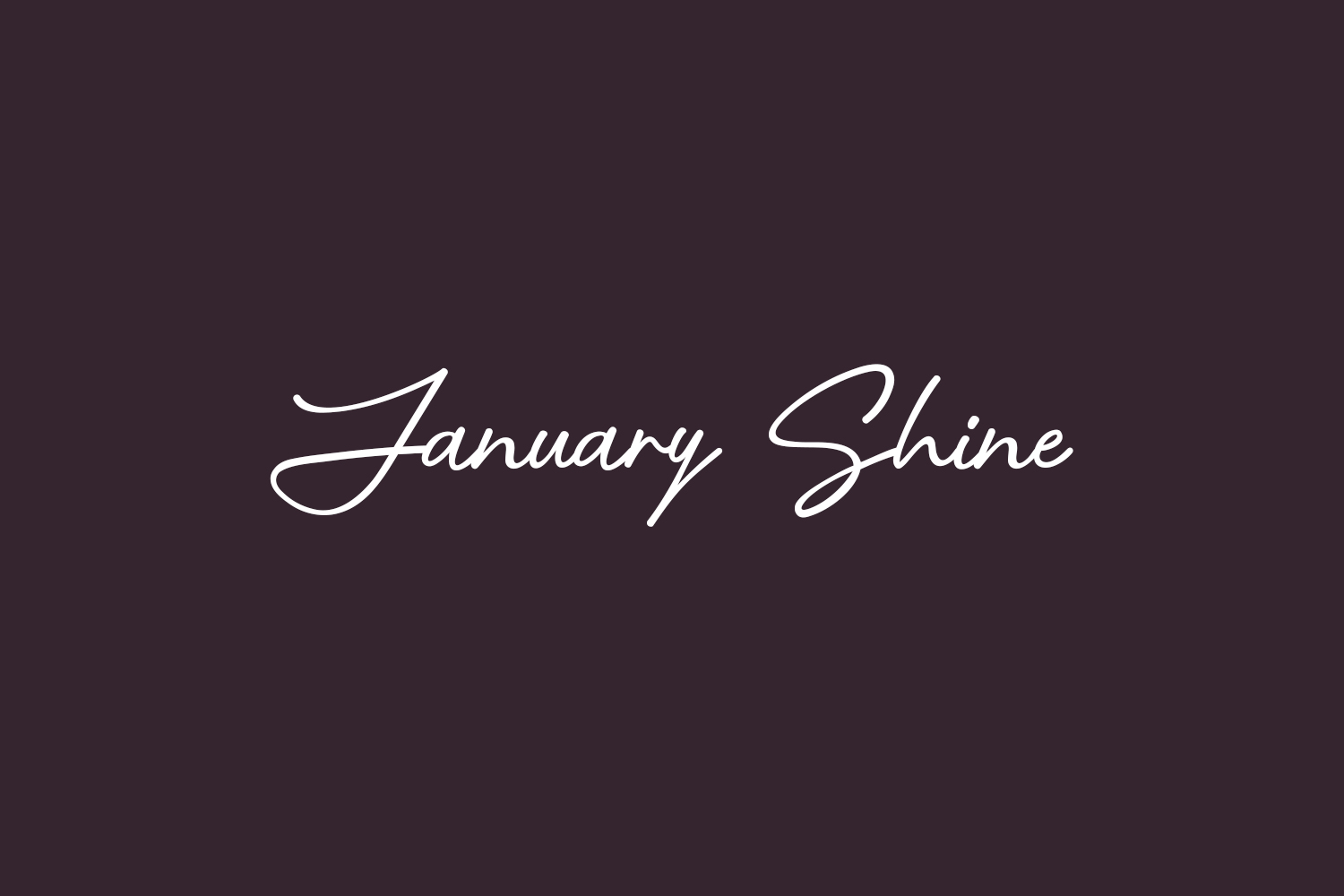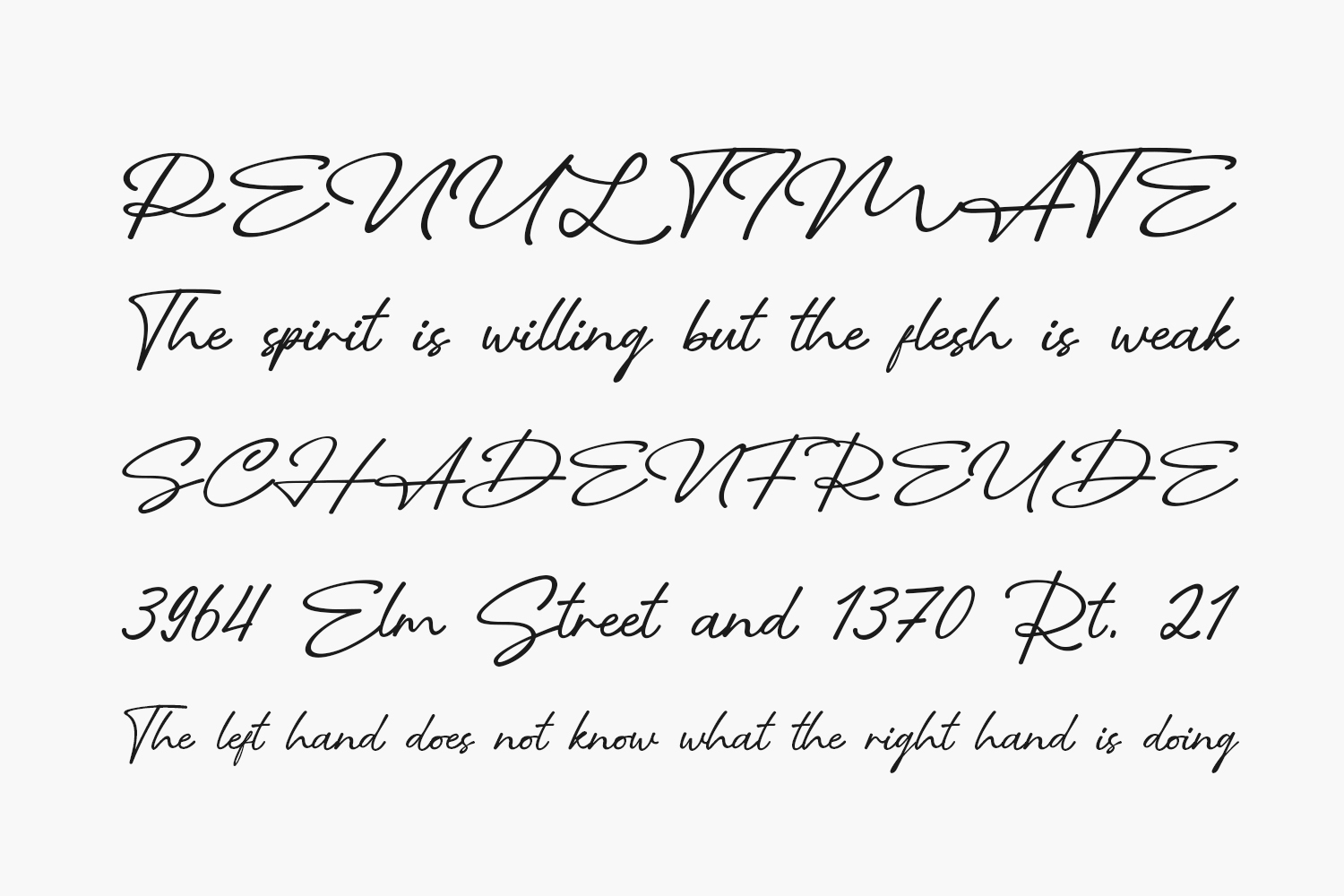
January Shine Free Font exudes a sophisticated elegance with its modern, sleek lines and curves. The script is both refined and effortless, evoking feelings of confidence and grace. The smooth, polished letters seem to radiate a brilliance, like the shimmer of light on freshly fallen snow. This font is a true beauty, perfect for adding a touch of class to any project.